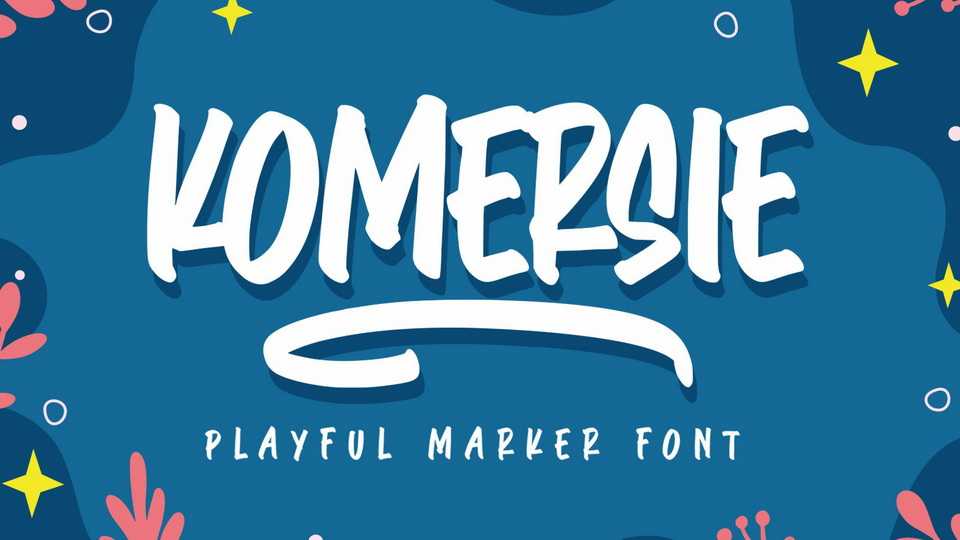
Download Komersie font, a playful marker typeface. Komersie was made with the natural marker brush and slightly slanted stroke, that gives the more handwriting feels.